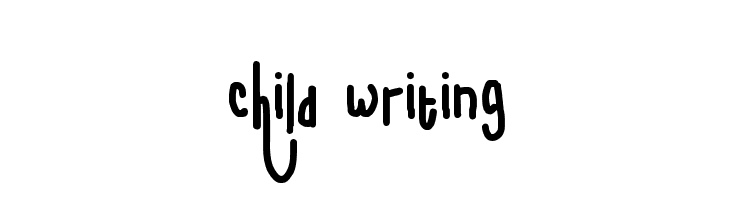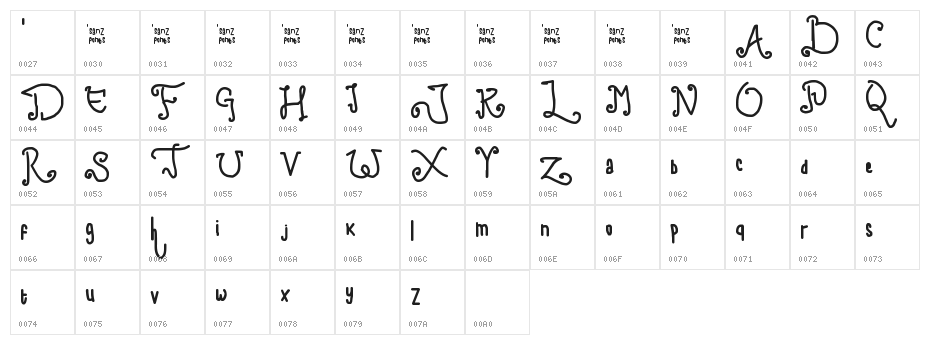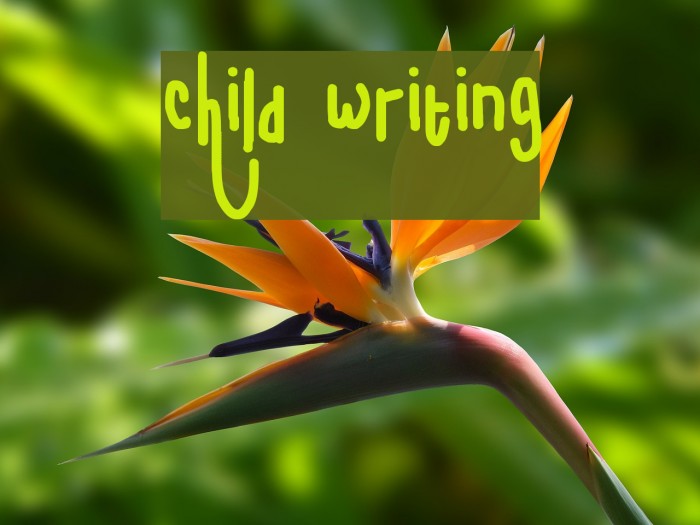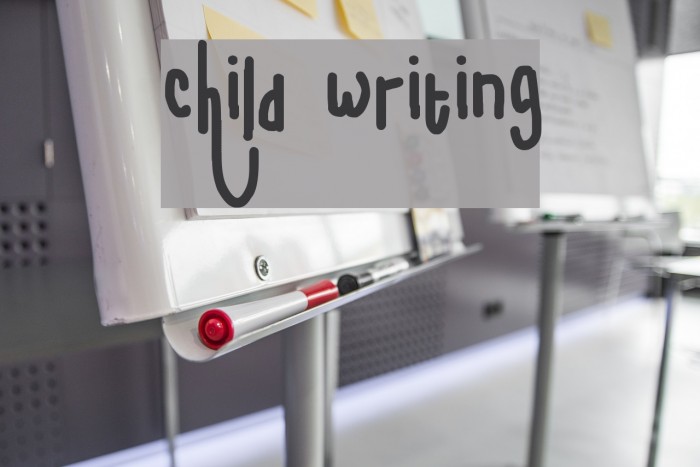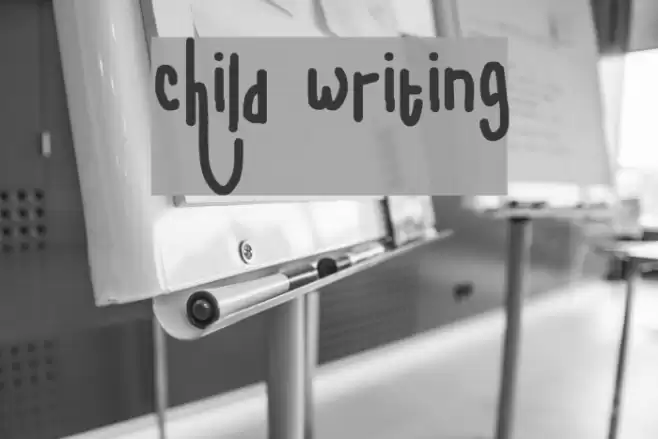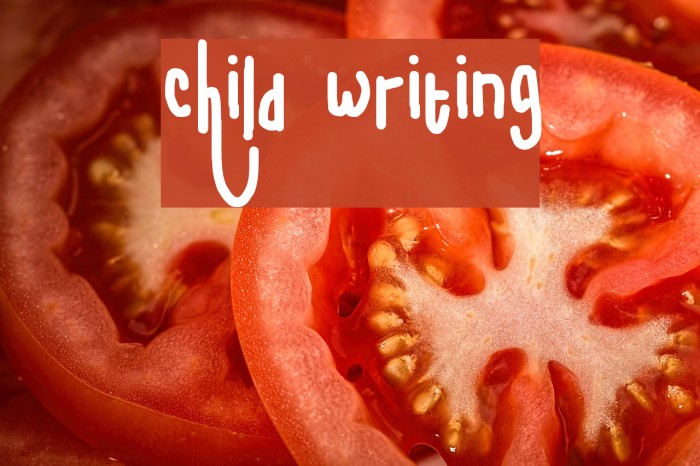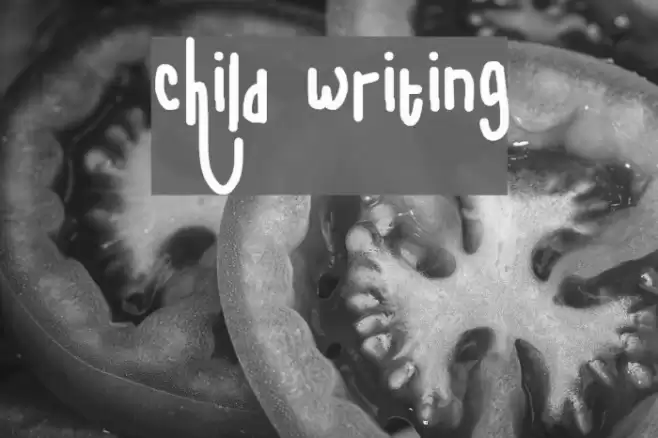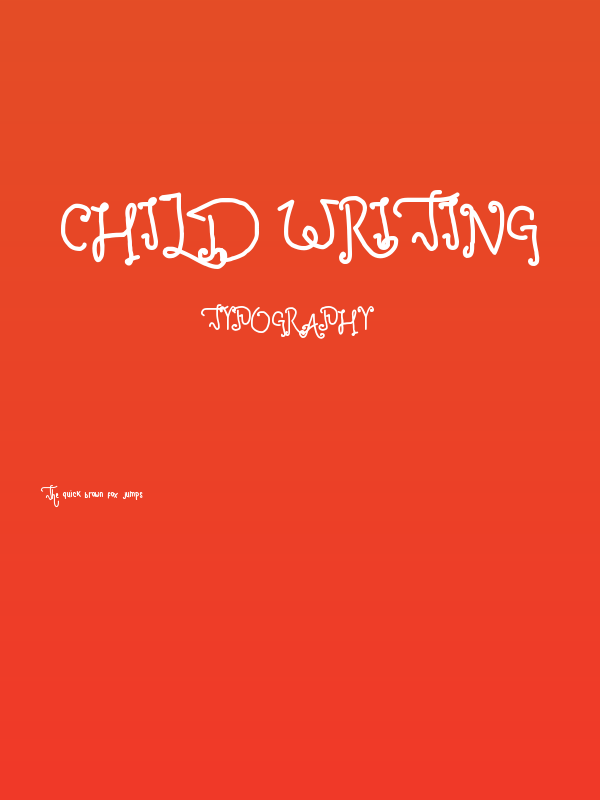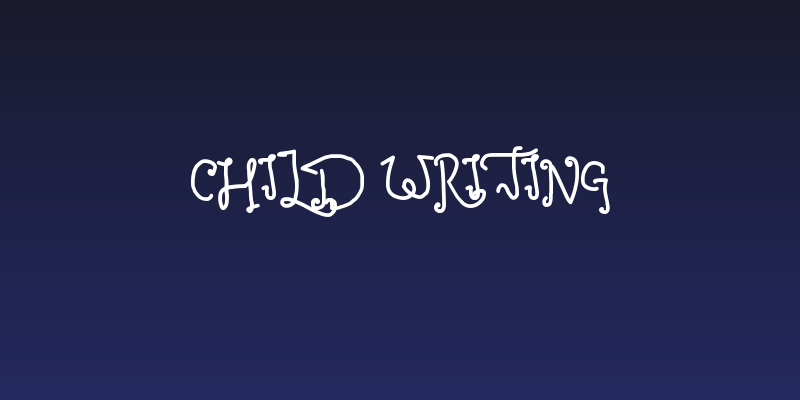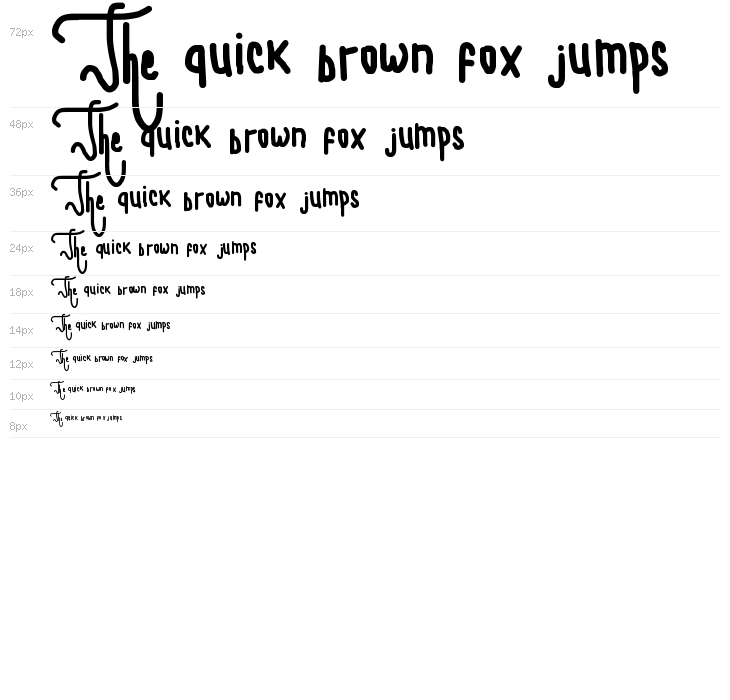
child writing Font
child writing Description
This font features a playful and whimsical style, reminiscent of childlike handwriting. The uppercase letters are characterized by their curly and exaggerated strokes, giving them a lively and animated appearance. The lowercase letters maintain a more straightforward, yet still playful, form with rounded edges and a slightly uneven baseline, enhancing the handwritten feel. The numbers and special characters follow the same playful theme, integrating seamlessly with the alphabet. This font exudes a sense of fun and creativity, making it ideal for projects that aim to capture a youthful and energetic vibe.
| Proposed Projects | Ideal for children's books, playful branding, educational materials, and creative invitations. |